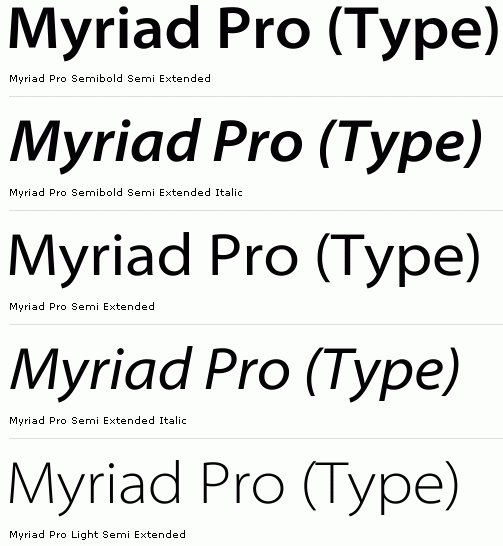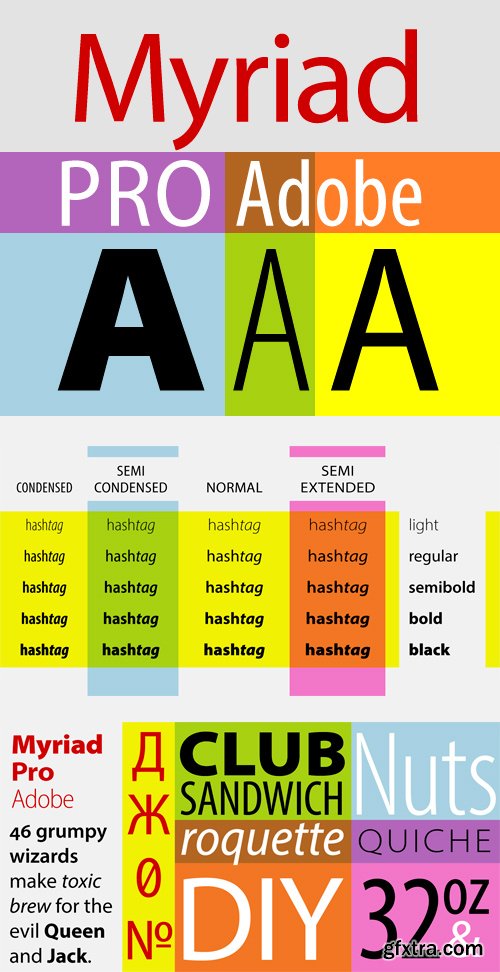
Myriad Pro Font Family
Myriad Pro Font Family - Web as an opentype release, myriad pro expands this sans serif family to include greek and cyrillic glyphs, as well as adding oldstyle.
Web as an opentype release, myriad pro expands this sans serif family to include greek and cyrillic glyphs, as well as adding oldstyle.